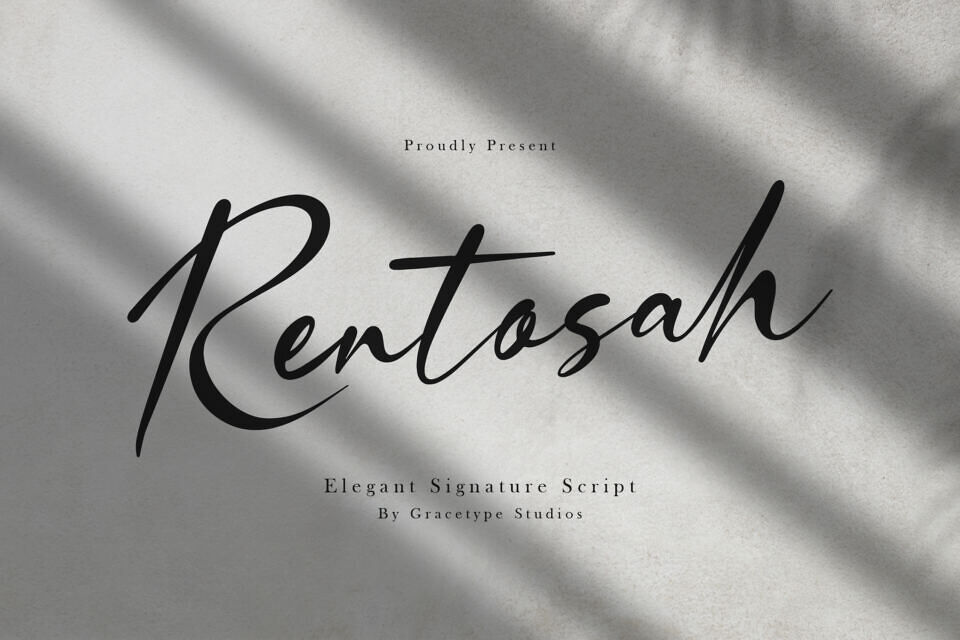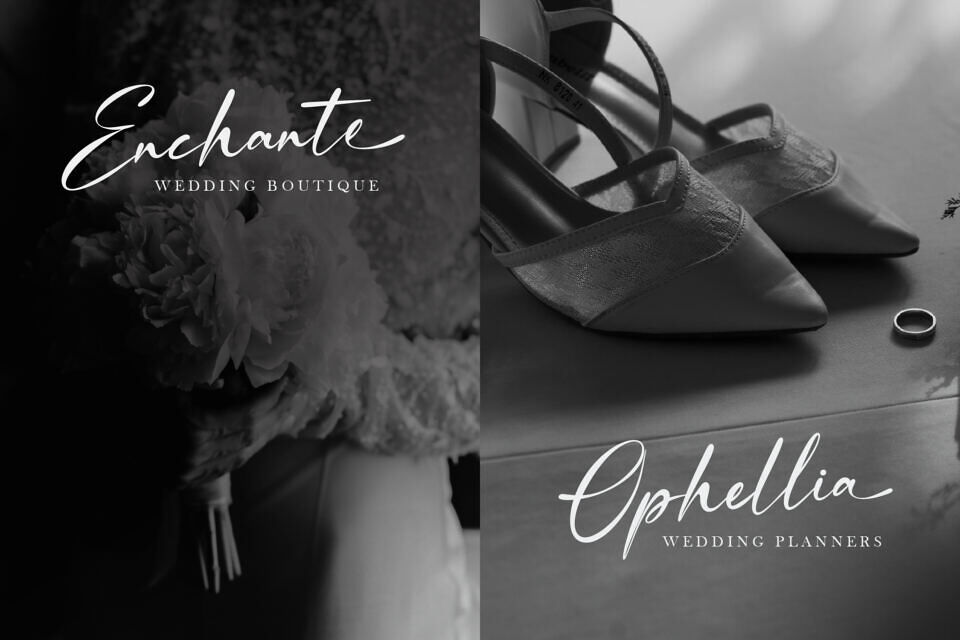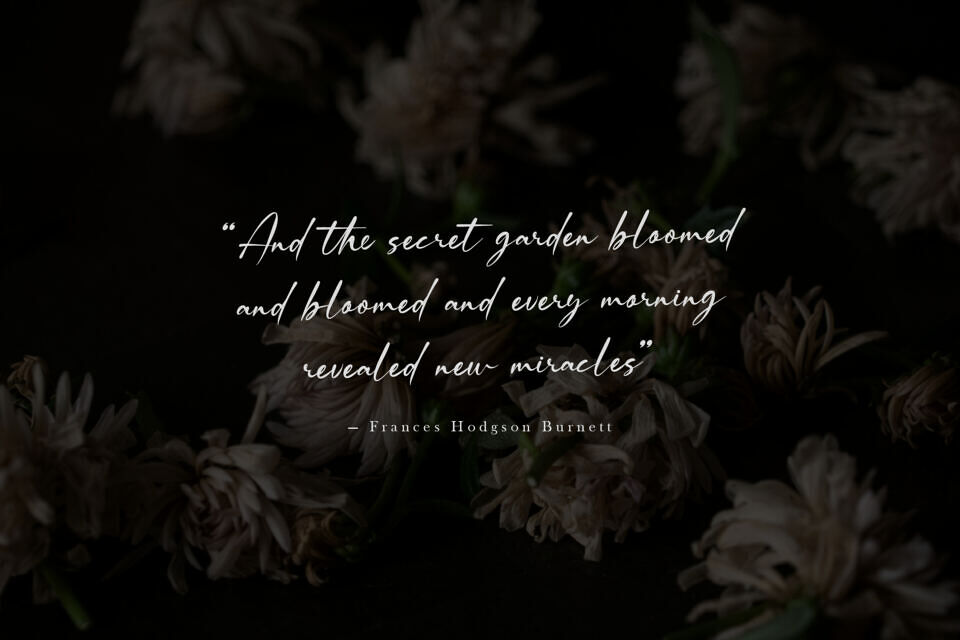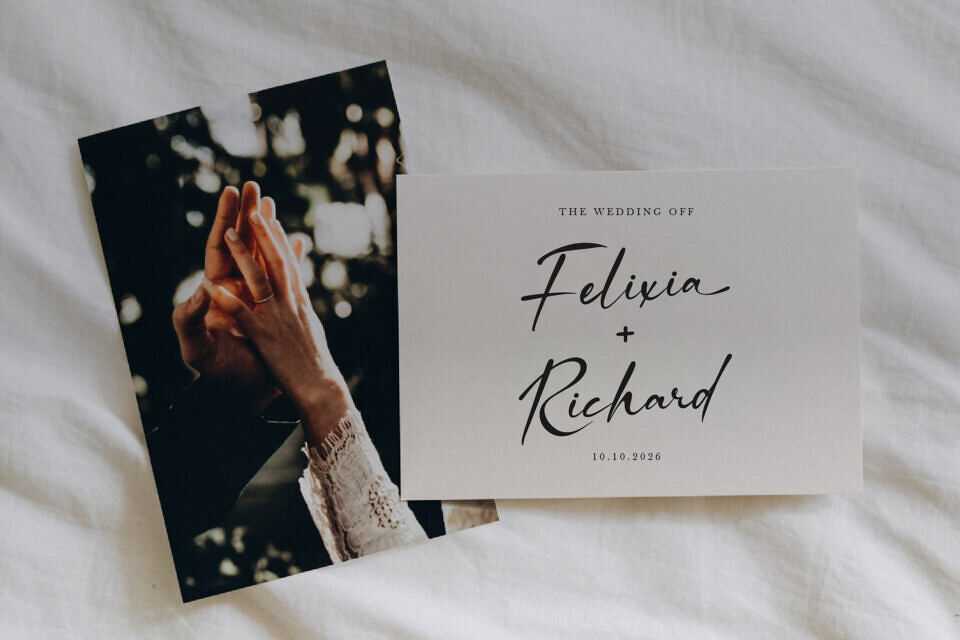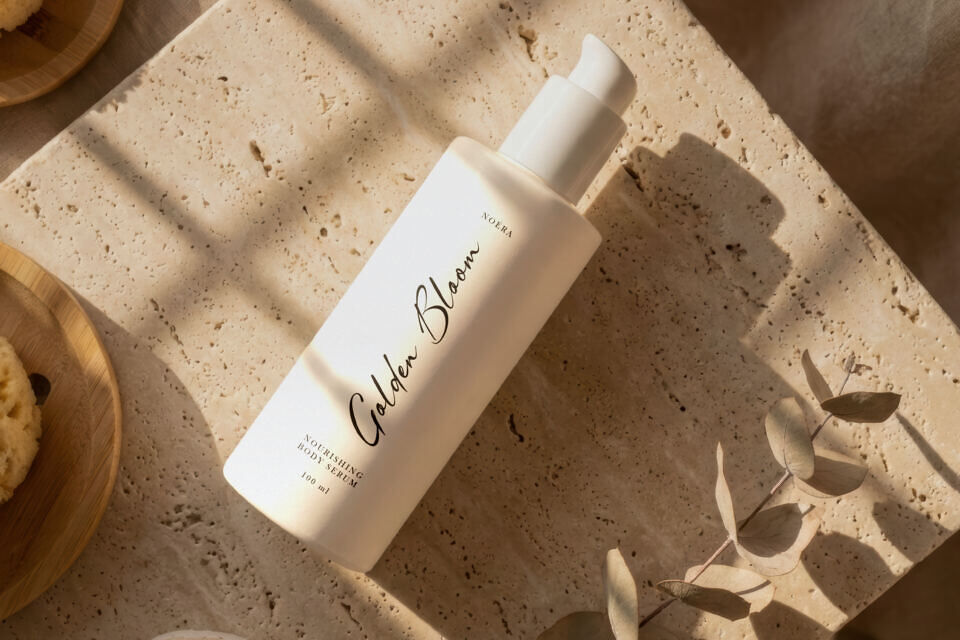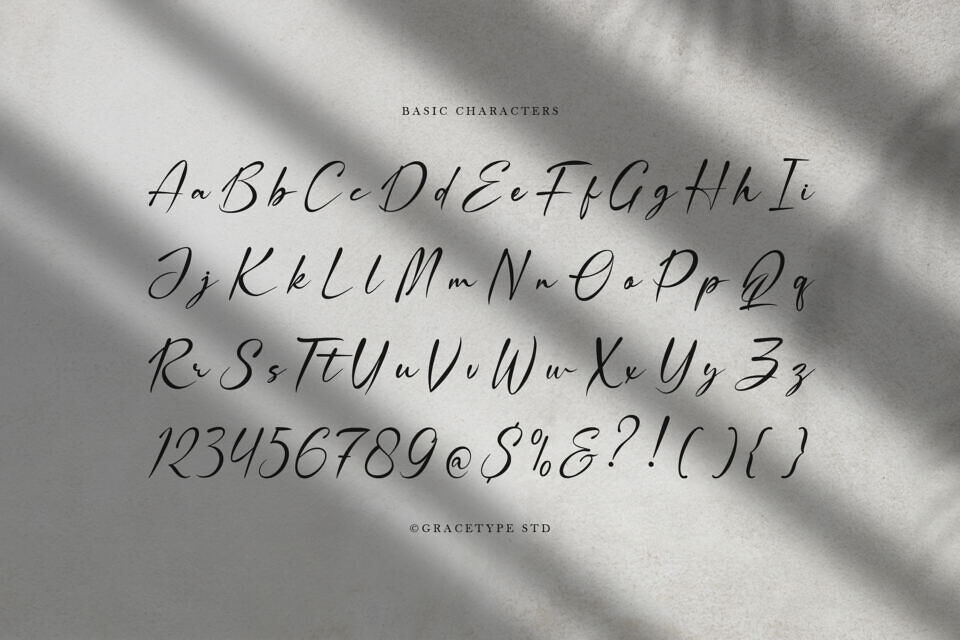
Add a personal touch to your designs with Rentosah, a sophisticated script font. It combines the elegance of natural handwriting with a refined, professional look, making it ideal for modern branding.
Use it to create stylish business cards, photography watermarks, or wedding stationery that exudes class and authenticity, perfect for giving your designs a high-end feel.